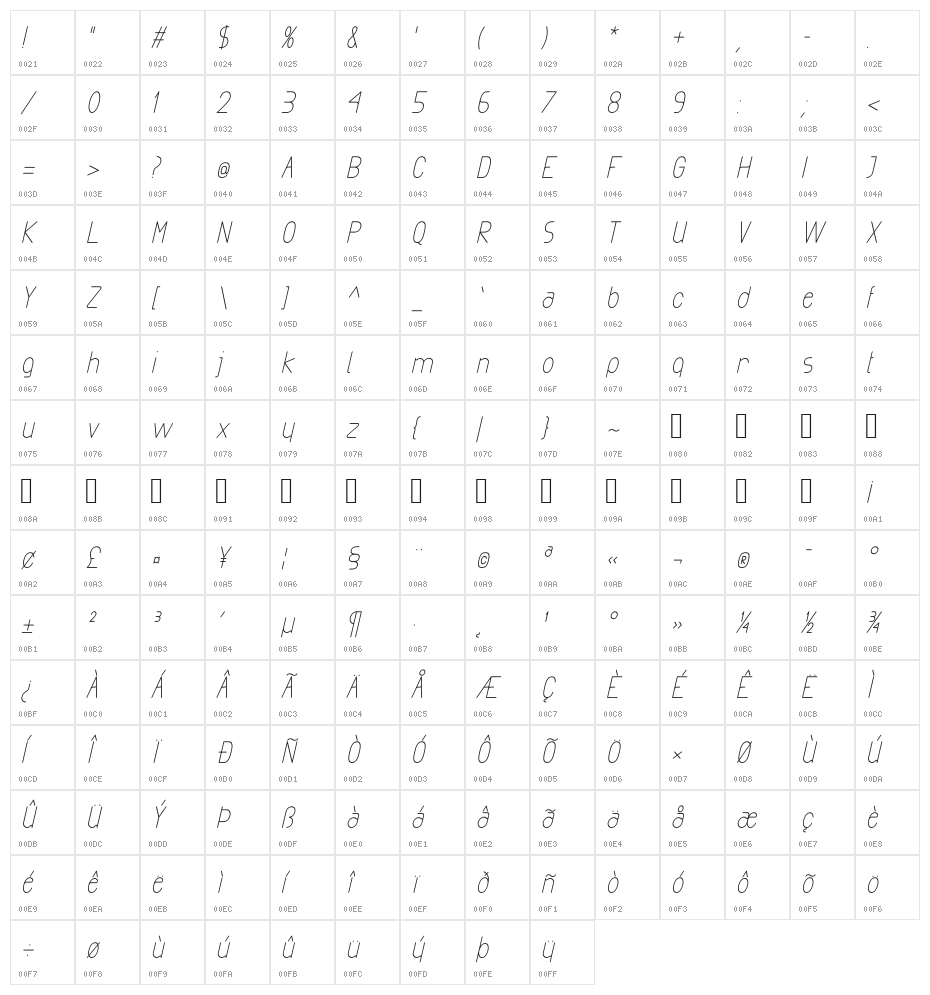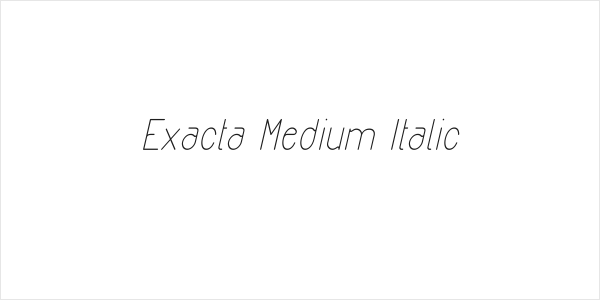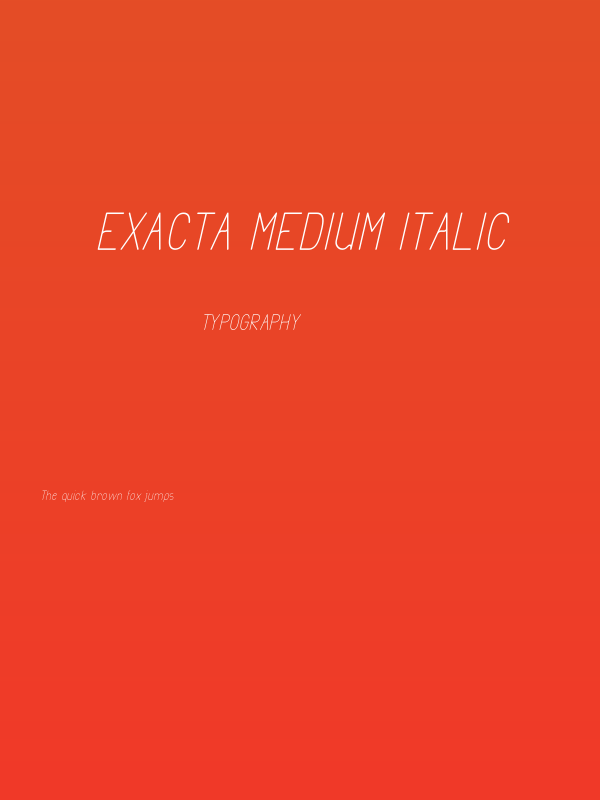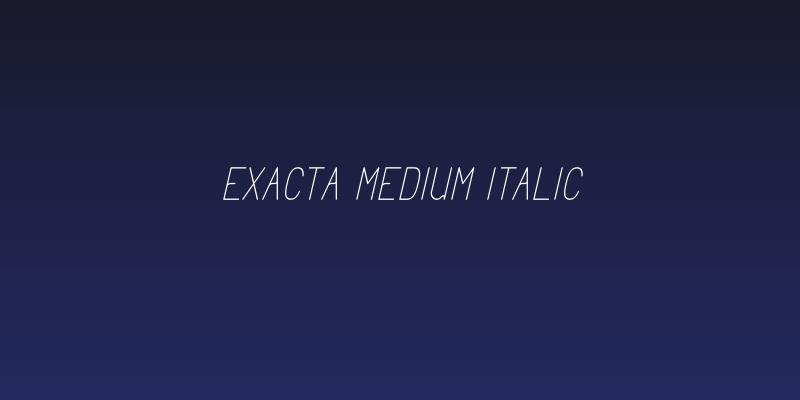
Exacta Medium Italic Font
Exacta Medium Italic Description
This font exhibits a sleek, modern aesthetic with a distinct italic slant, giving it a dynamic and forward-moving appearance. The characters are crafted with a clean, linear style that maintains clarity and readability. The uppercase and lowercase letters are well-proportioned, with a slight inclination that adds elegance and sophistication. The numerals are consistent with the alphabetic characters, ensuring uniformity across all text. Special characters are included, maintaining the same stylistic approach, making this font versatile for various applications.